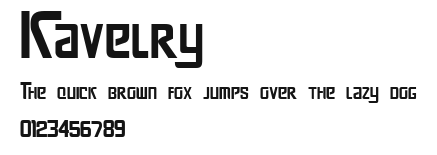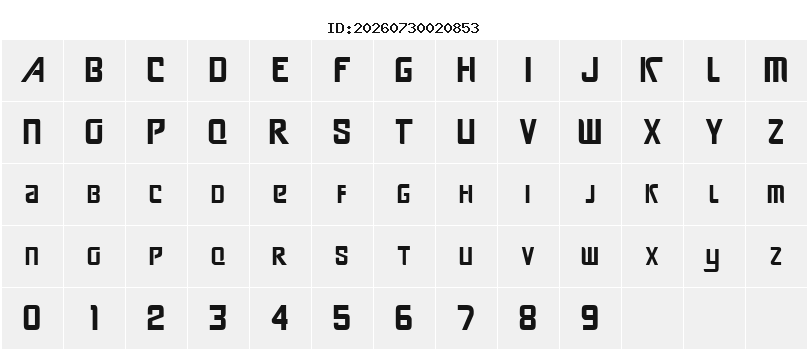
Kavelry Preview
• Font Name: Kavelry
• Full Font Name: Kavelry
About Kavelry.ttf
Kavelry.ttf is a modern, elegant sans-serif font designed for ultimate readability and visual harmony. Perfect for branding, headlines, web design, and print materials.